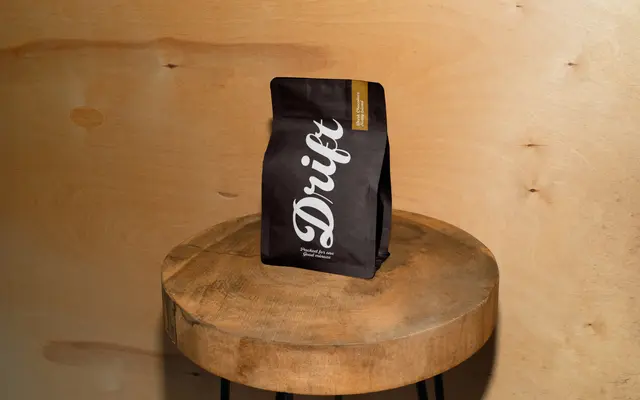
A flowing handwritten script with swashes and thick-to-thin contrast, drawing on the aesthetic of elegant historical penmanship.
Designed around the French notion of warmth and generosity, this script features fanciful flourishes, swashes and a slight forward incline that conveys a sense of natural movement. Stroke contrast runs from thick to tapered in a way that recalls traditional penmanship rather than contemporary casual scripts. Best suited to brand identities and packaging where warmth, nostalgia and a human touch are the primary brief.
Bonté is a script typeface characterised by flowing flourishes, swashes and thick-to-thin stroke contrast with a slight incline, emulating the style of historical everyday handwriting.